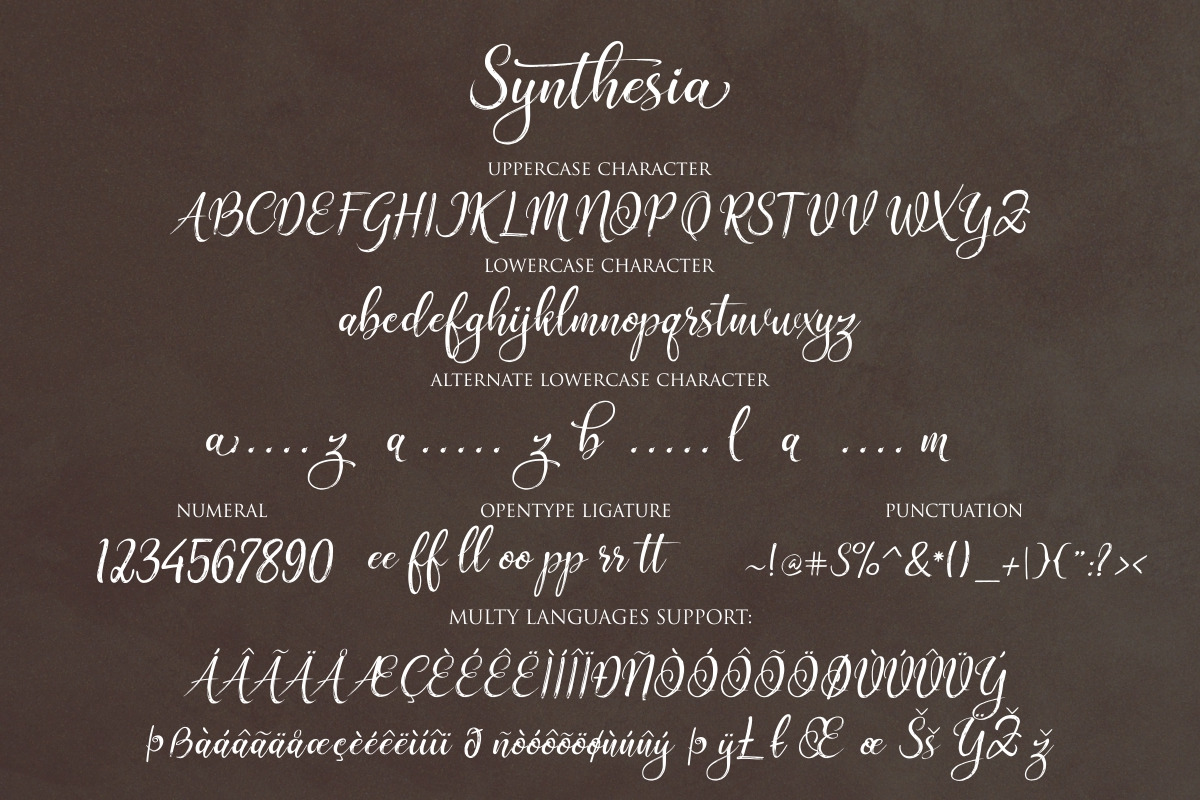
Synthesia
Synthesia Script - A Handbrushed Style Font
Synthesia Script comes with upper and lowercase characters, punctuation glyphs, numerals, and supports international languages. Stylistic sets for several key lower case characters are also available. Perfect for logo marks, typographic quotes over photos, book covers and packaging design.
Language Support : Albanian, Basque, Breton, Chamorro, Danish, Dutch, English, Faroese, Finnish, French, Frisian, Galician, German, Icelandic, Italian, Malagasy, Norwegian, Portuguese, Swedish
The Features of this fonts is: Contextual Alternates, Standart ligatures, Stylistic Alternates, Stylistic Sets,